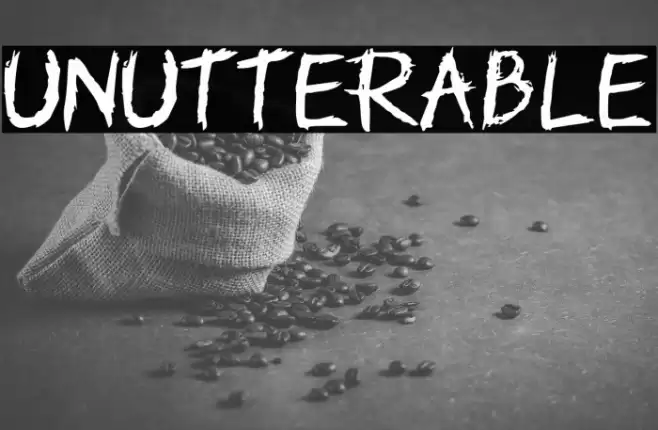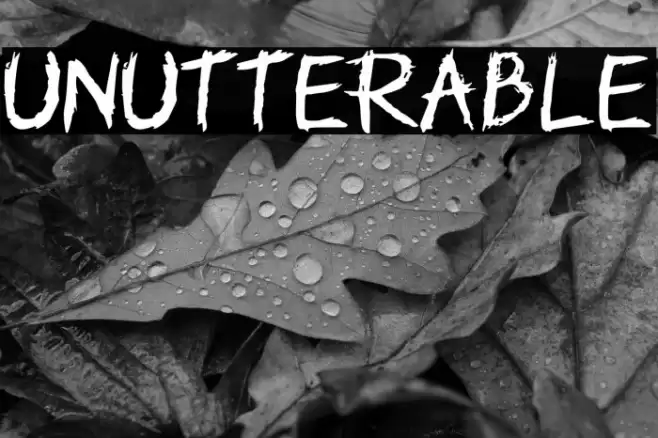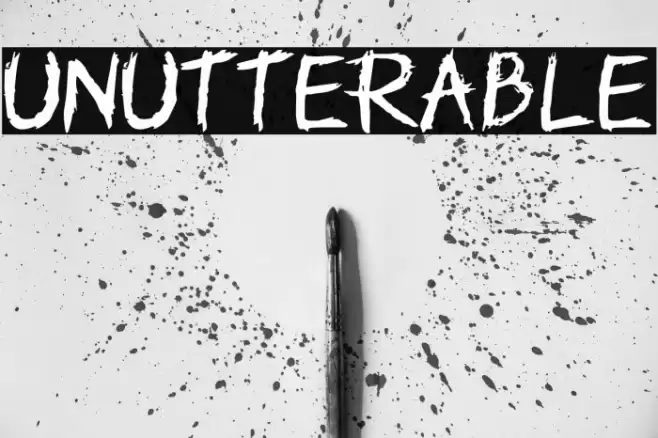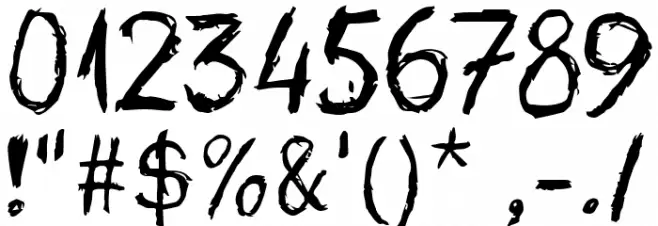
Unutterable Font
Unutterable Description
This font features a rugged, distressed appearance, with each character appearing as if it has been hand-drawn with a rough brush or marker. The strokes are uneven and jagged, giving it a raw and edgy feel. The uppercase and lowercase letters maintain a consistent style, with sharp angles and irregular edges. Numbers and special characters follow the same aesthetic, adding to the font's cohesive look. The overall design is bold and attention-grabbing, making it suitable for projects that require a strong visual impact.
A rugged, hand-drawn font with a distressed, edgy appearance from Regular fonts.
- Proposed Projects: Ideal for album covers, posters, graffiti art, and any project needing a bold, rebellious look.